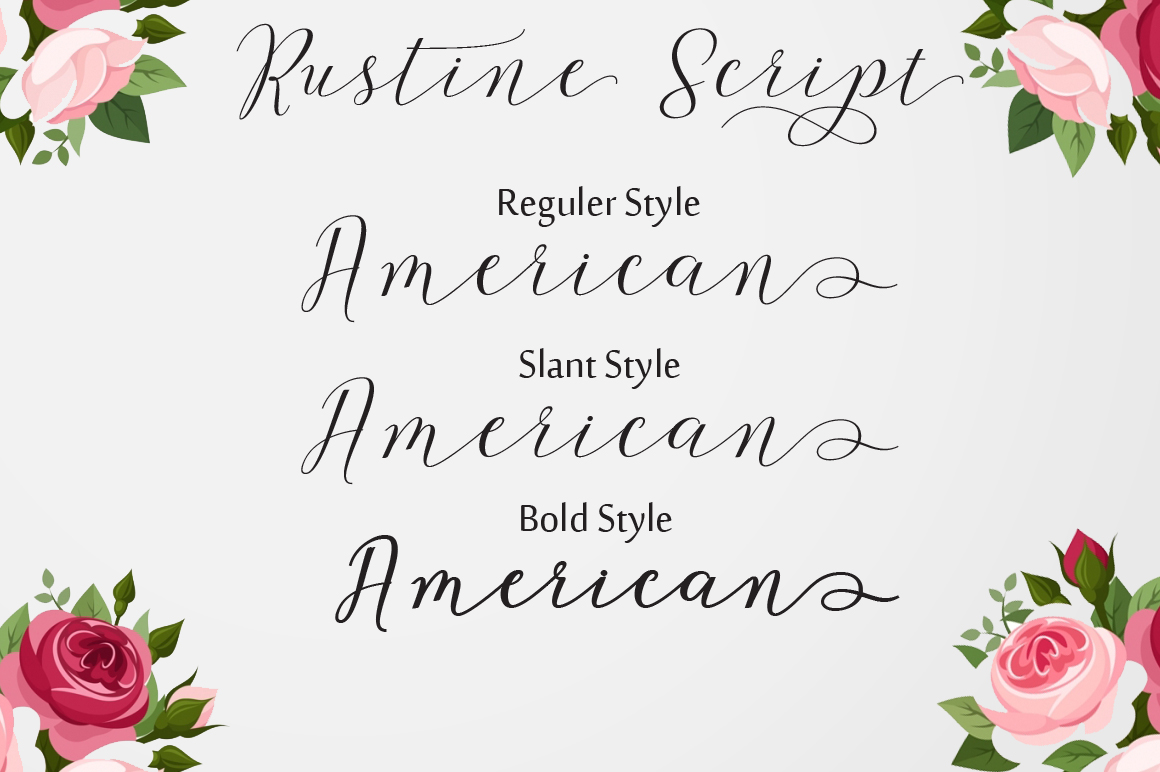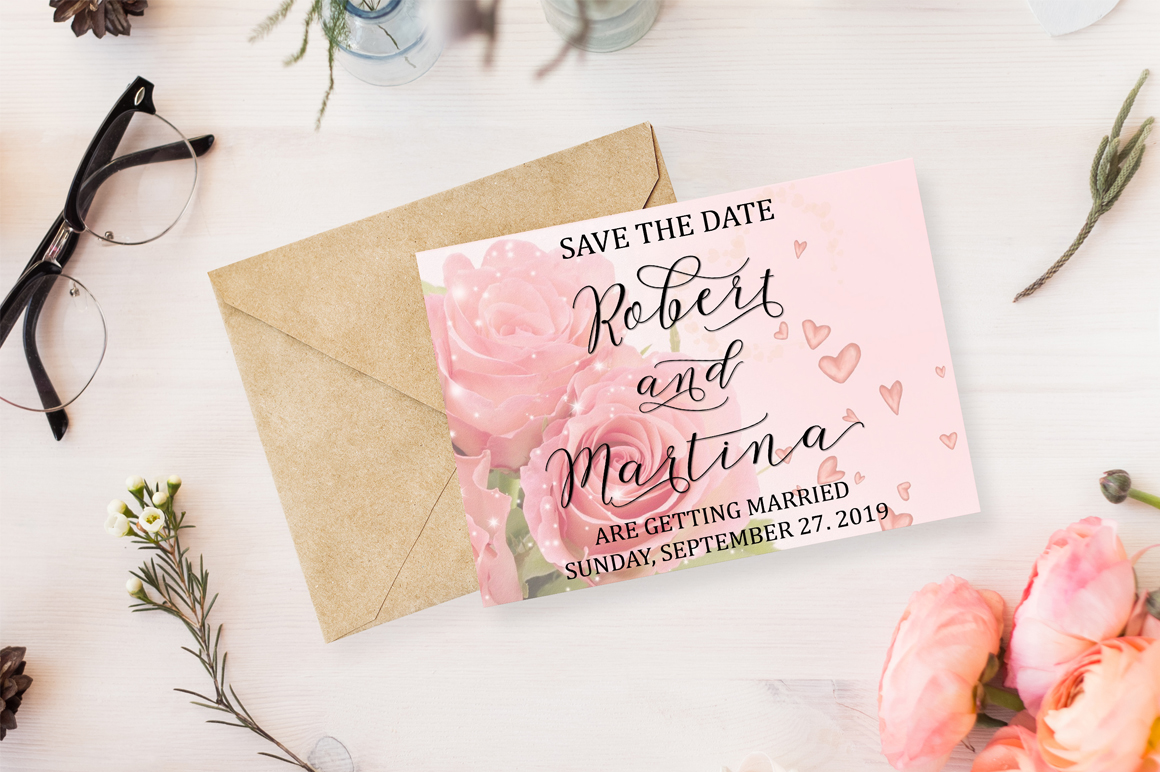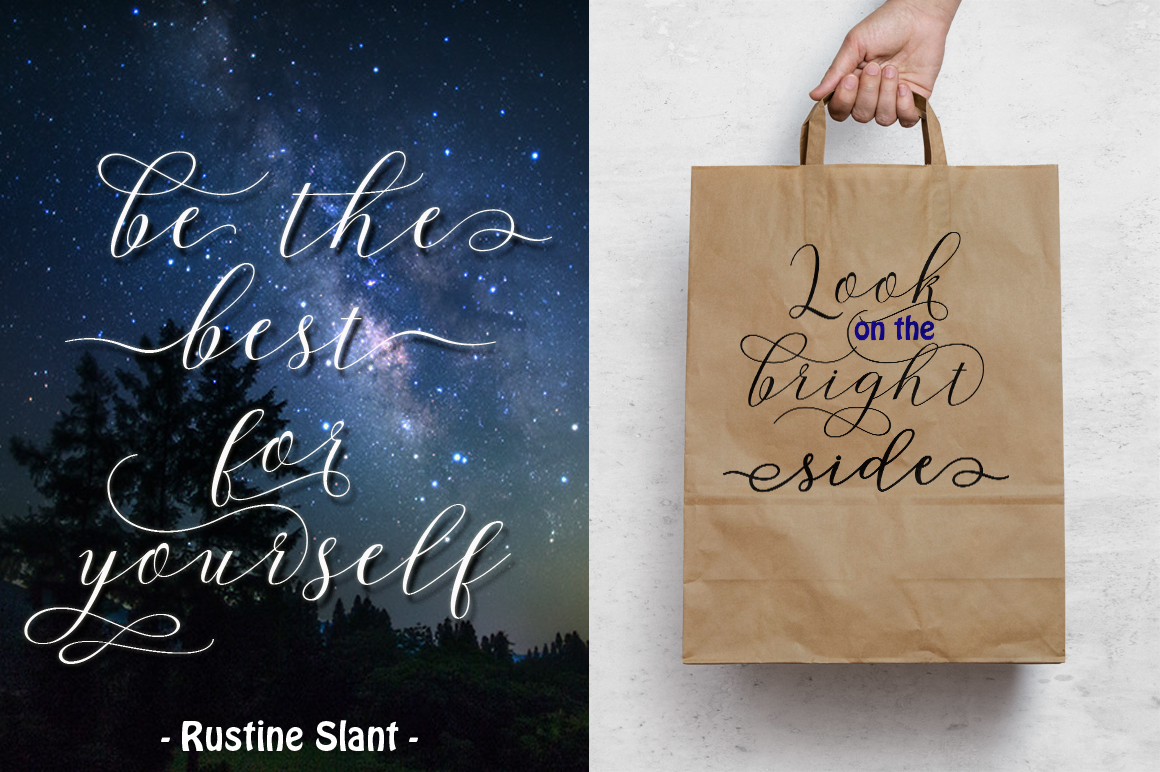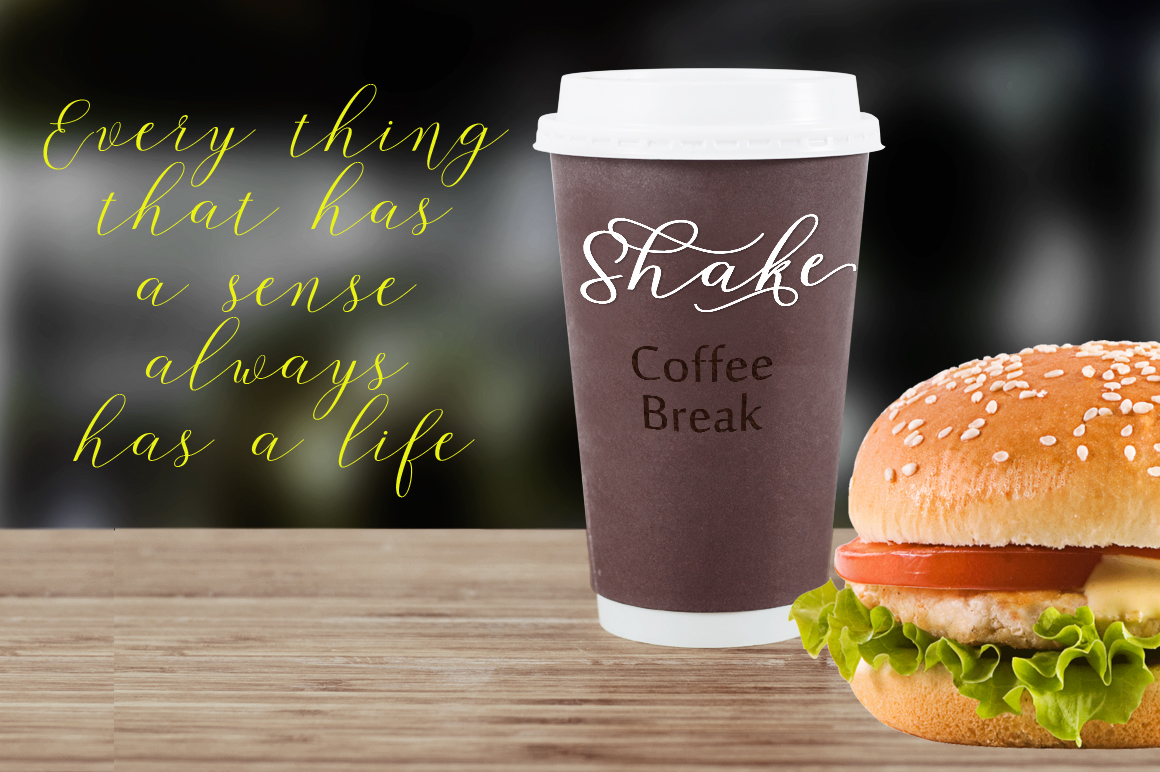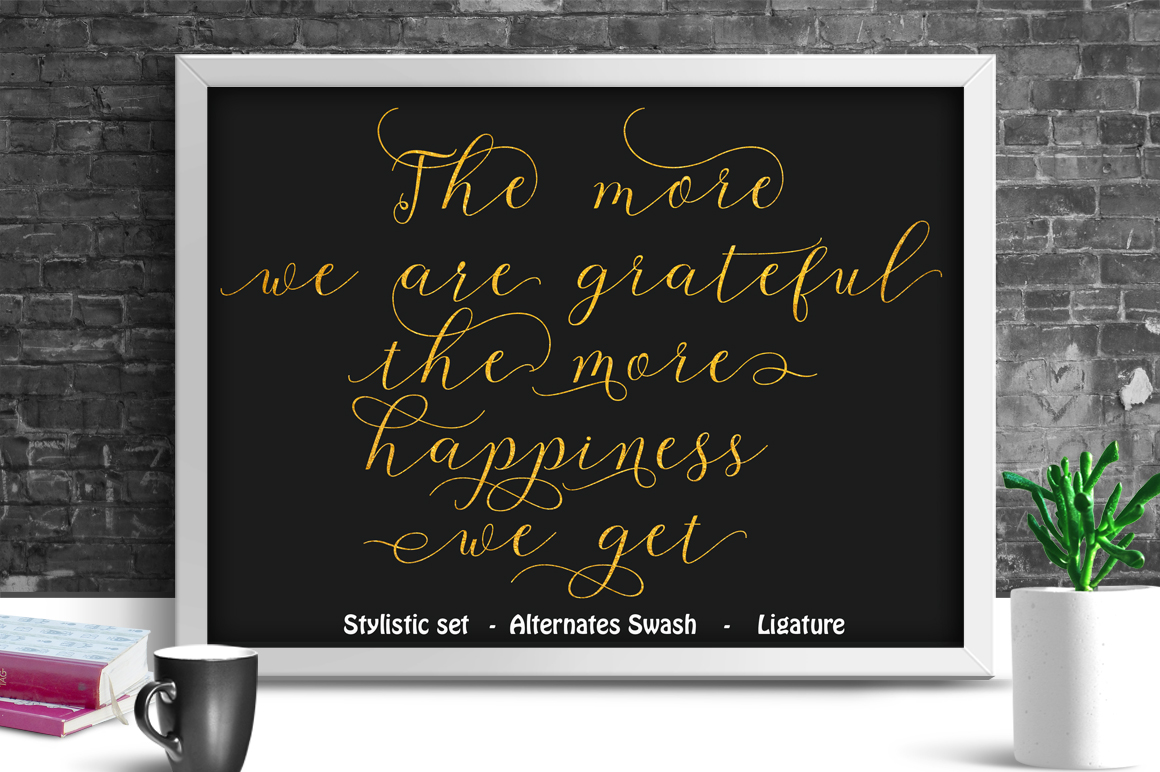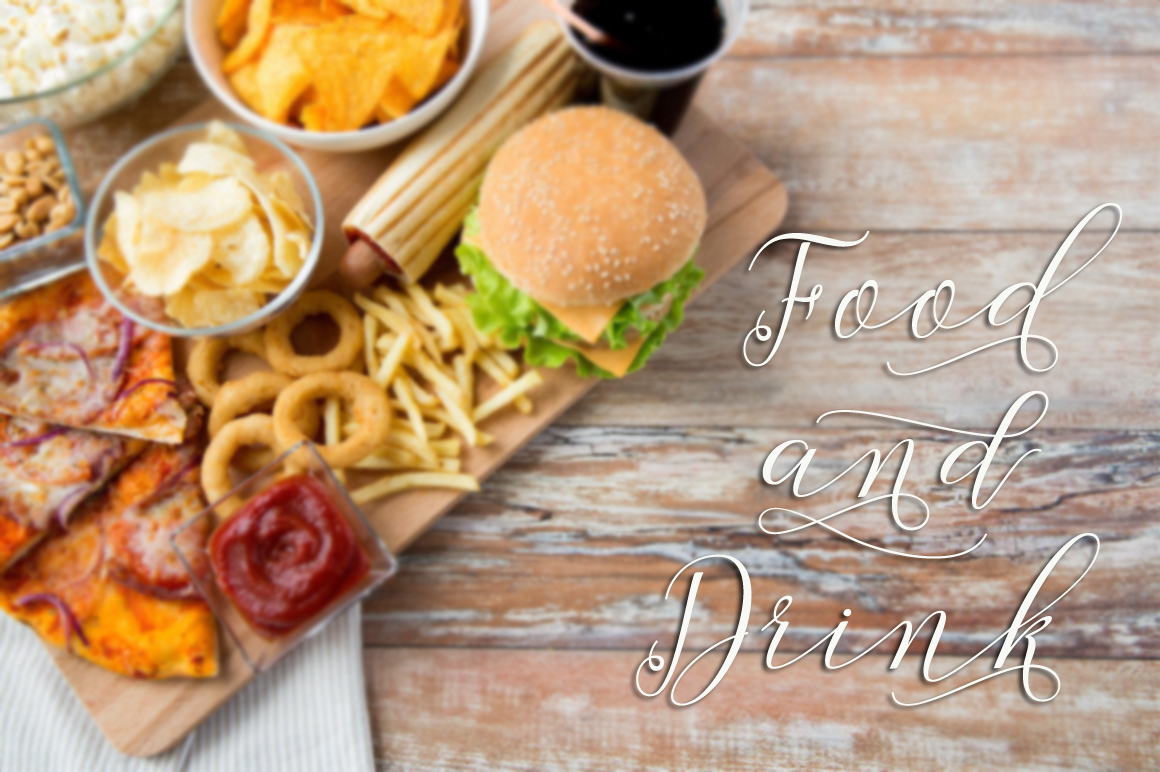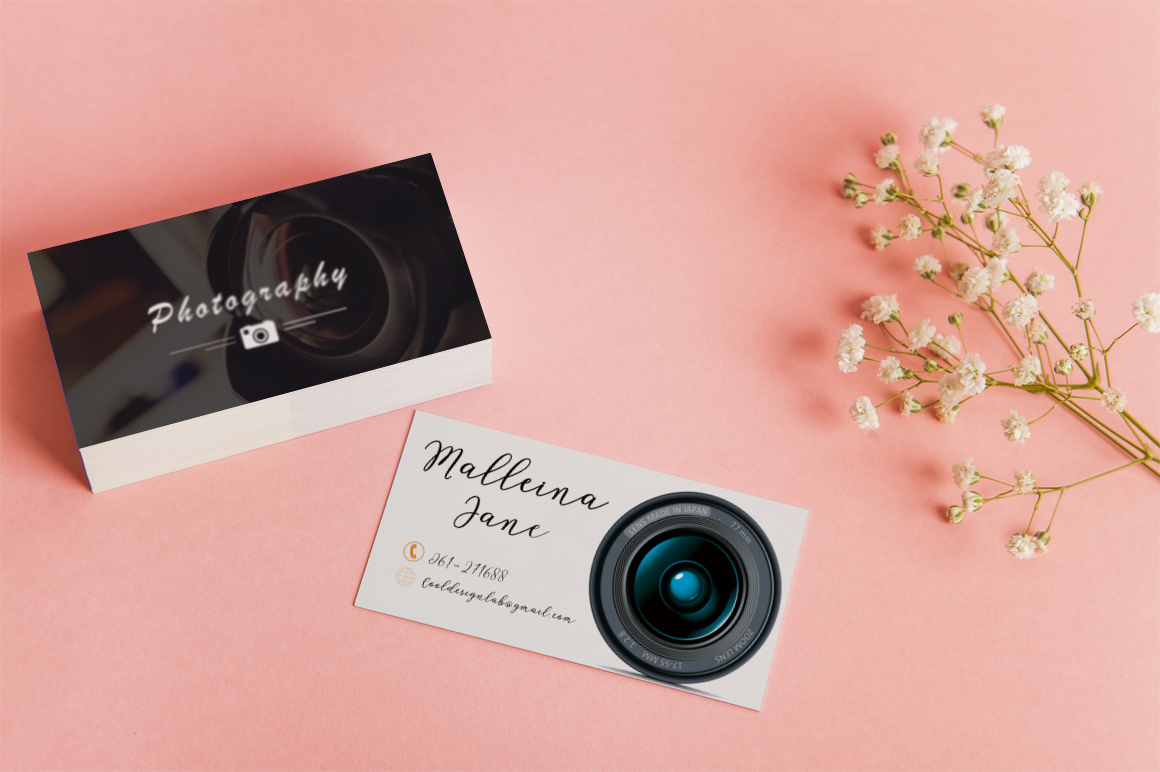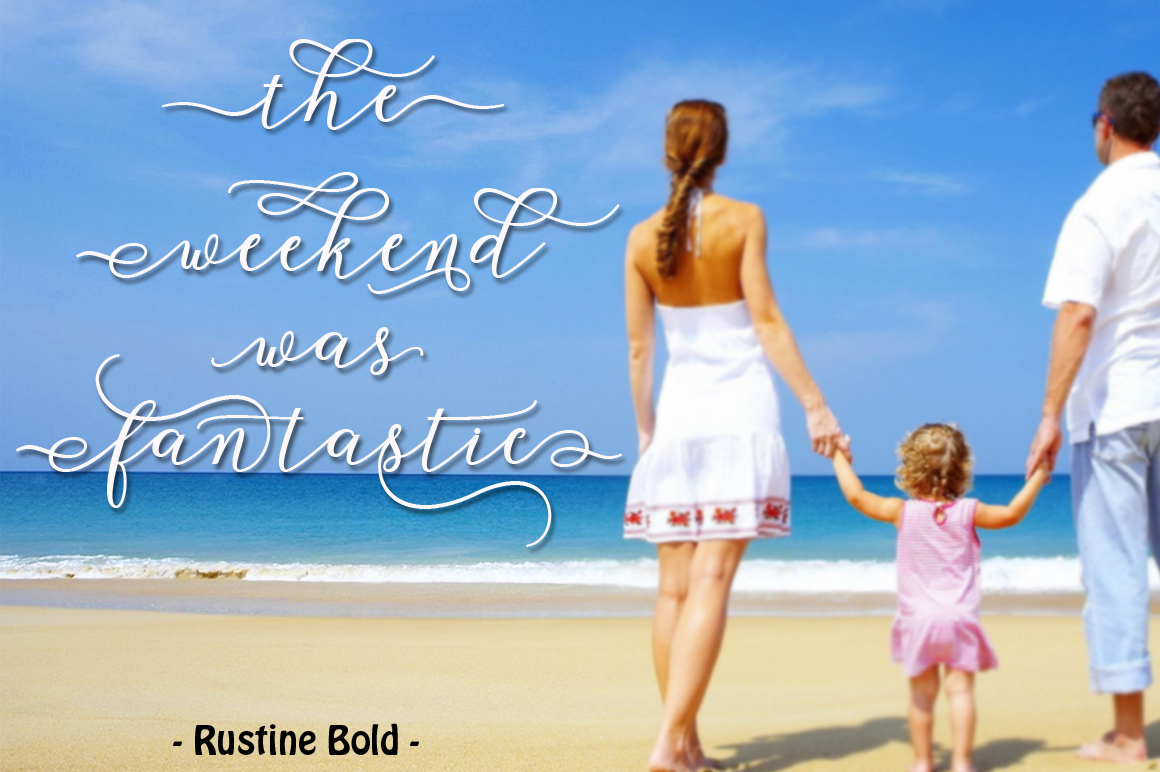
Rustine Font
About Rustine Font
Rustine is a fresh, modern handwritten script. This calligraphy-style font features smooth decorative letters that dance around on your screen.
It’s compatible with a lot of different types of projects and you will be guaranteed to add an elegant personal touch to your designs in seconds by using this stunning font.